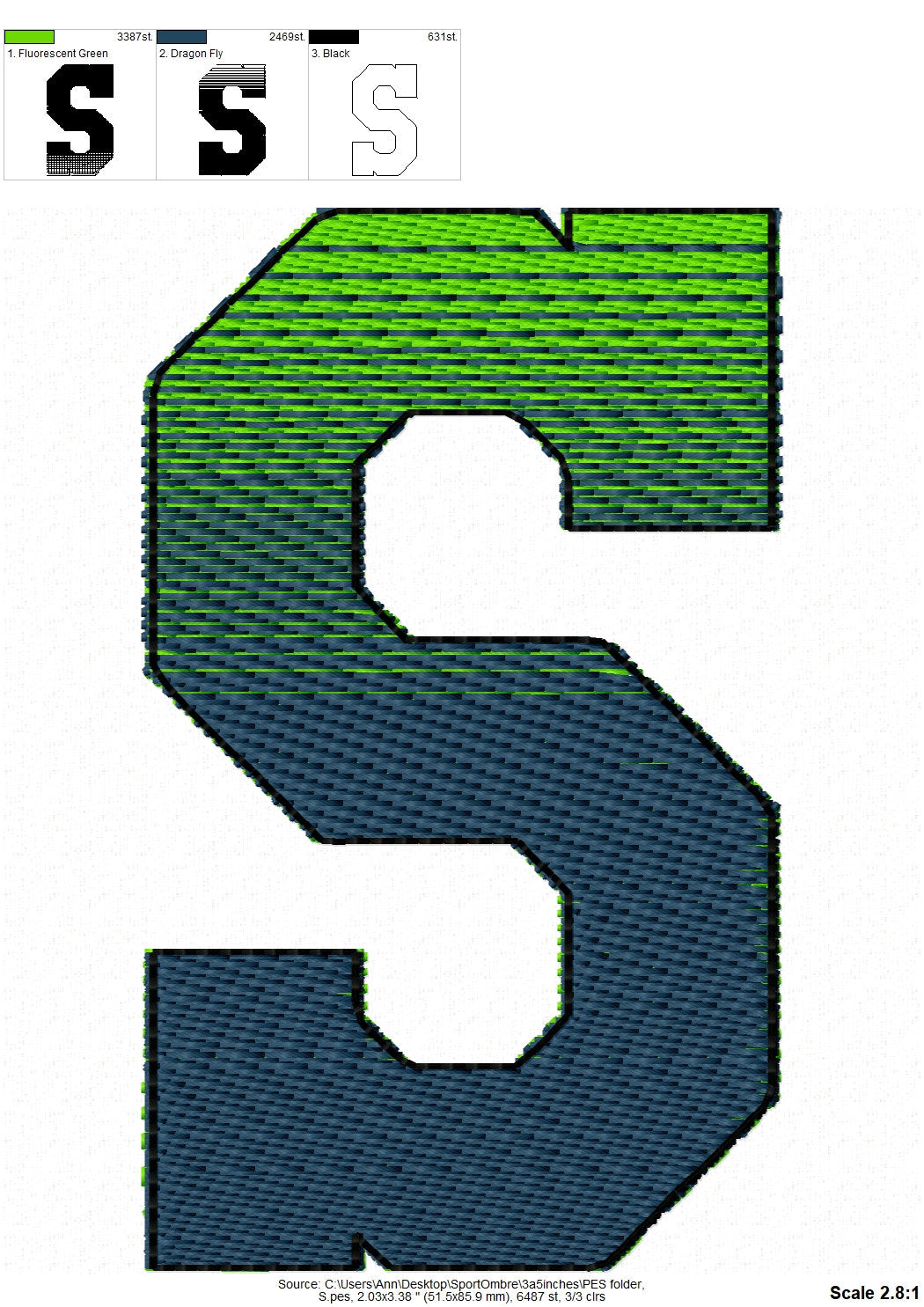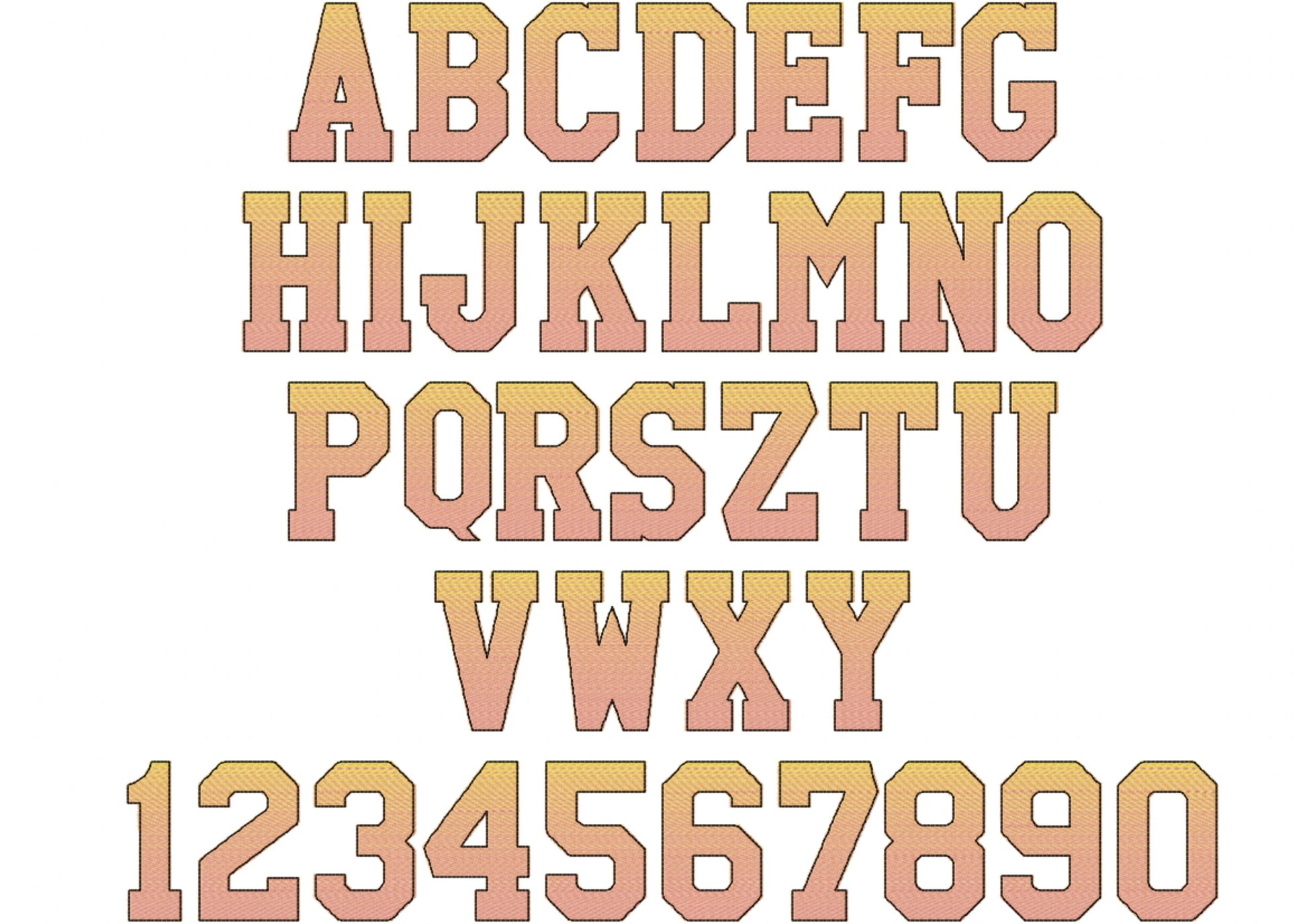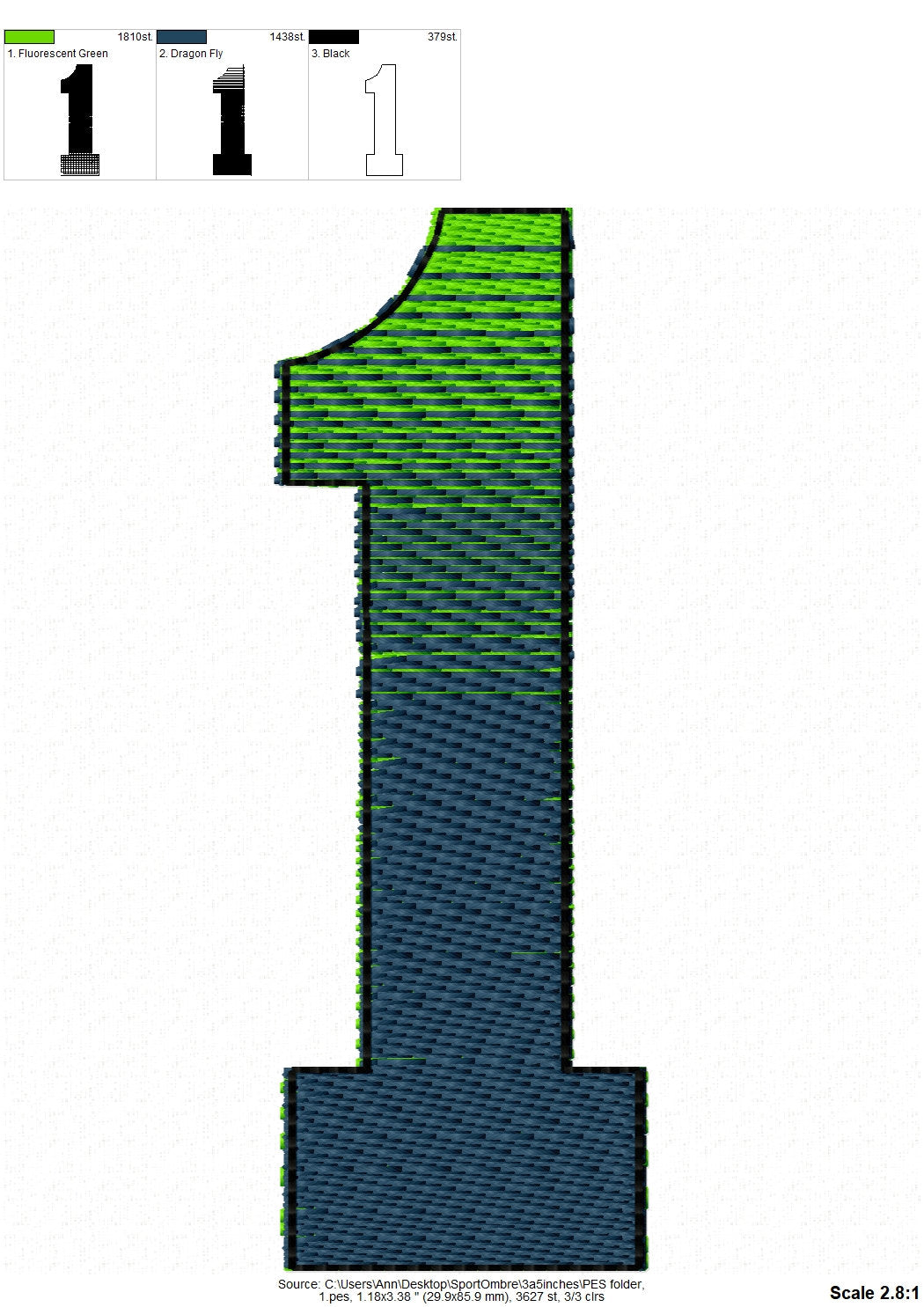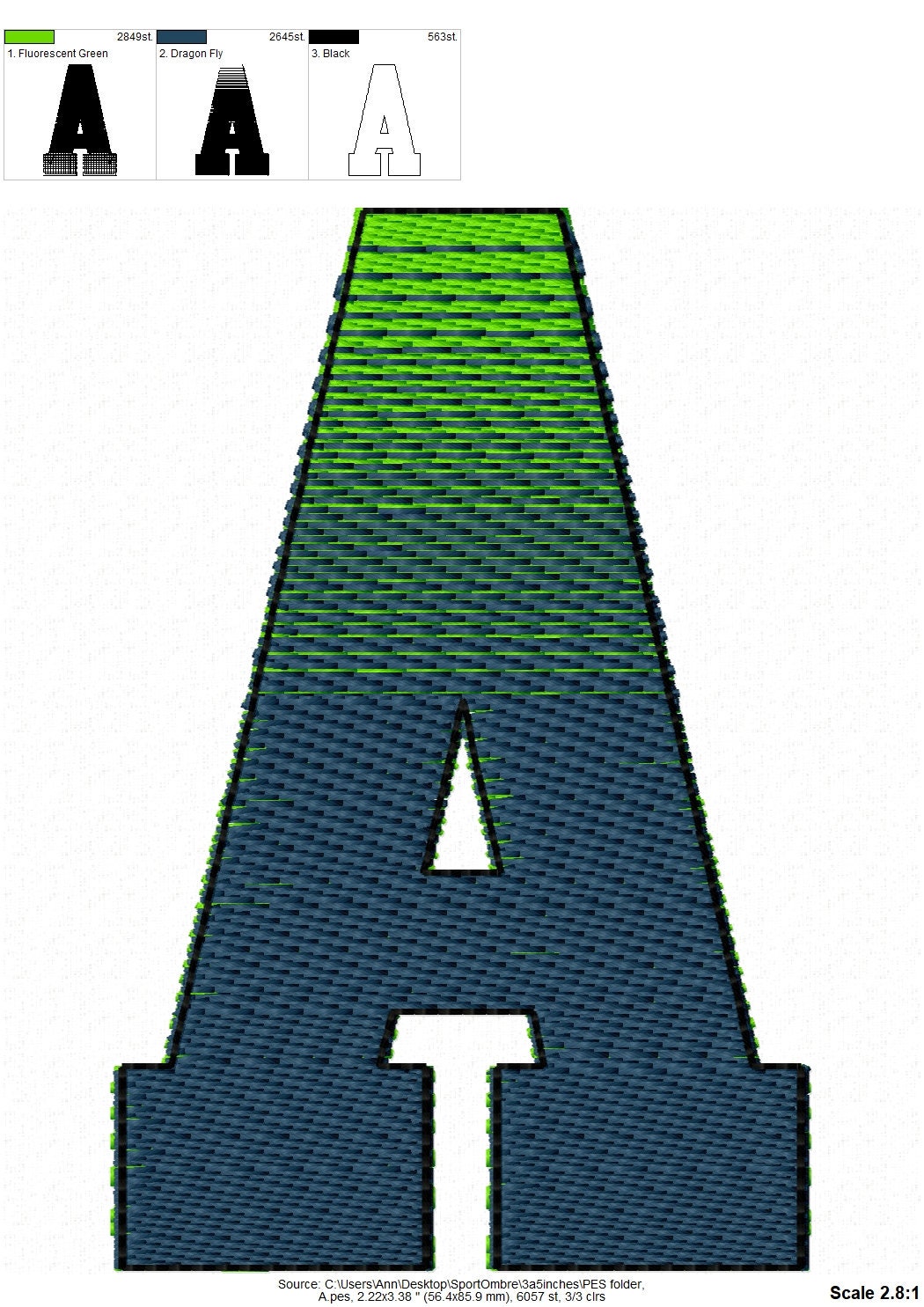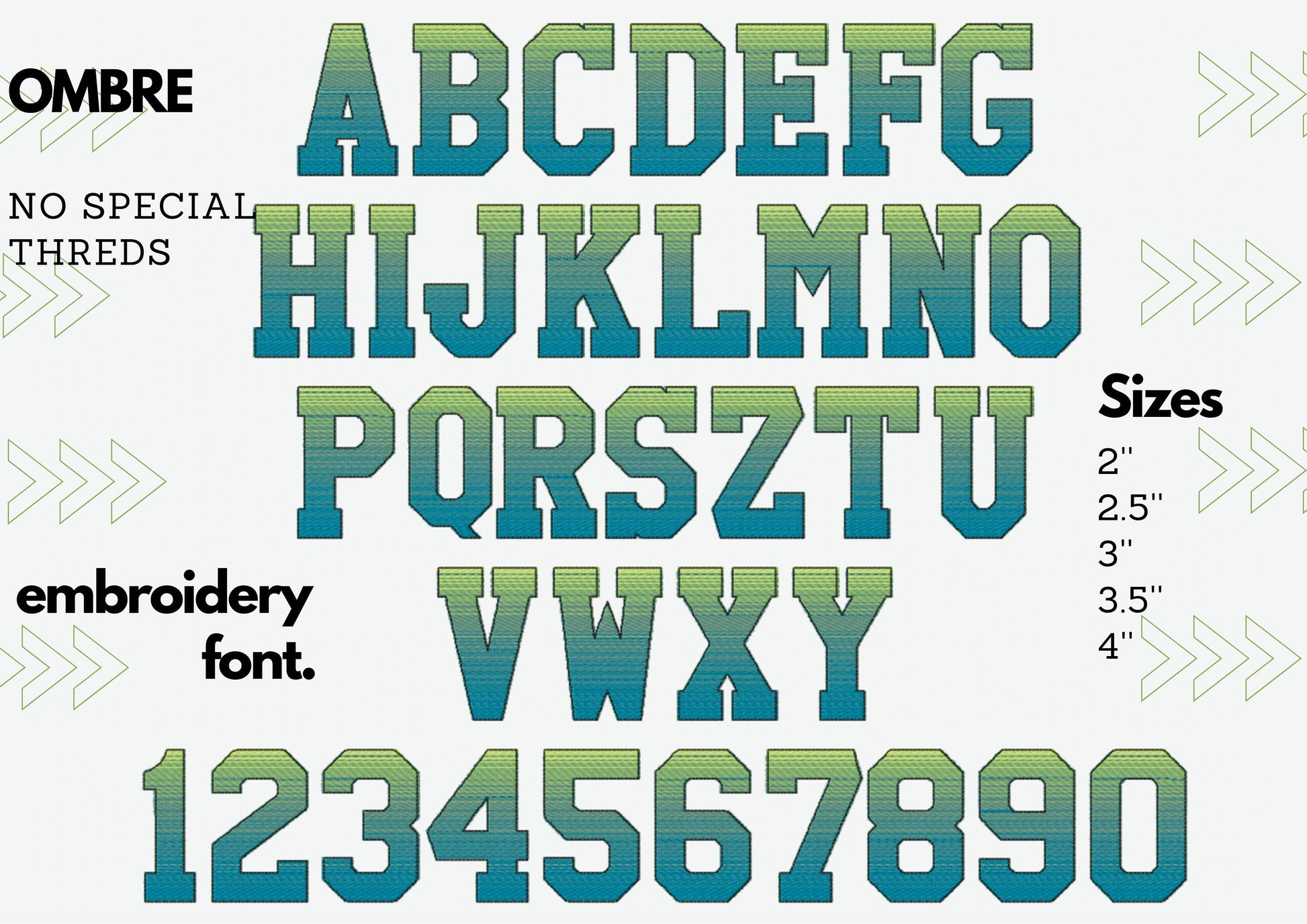
Or click to open the linkAn iridescent varsity block font stitched with two ordinary thread colors, no special thread needed. Great for team shirts, monograms and names.
Uppercase letters A to Z, numbers 0 to 9 and an ampersand, in five sizes: 2, 2.5, 3, 3.5 and 4 inches. One side of each letter is stitched in one color and the other side in a second color for a gradient look.